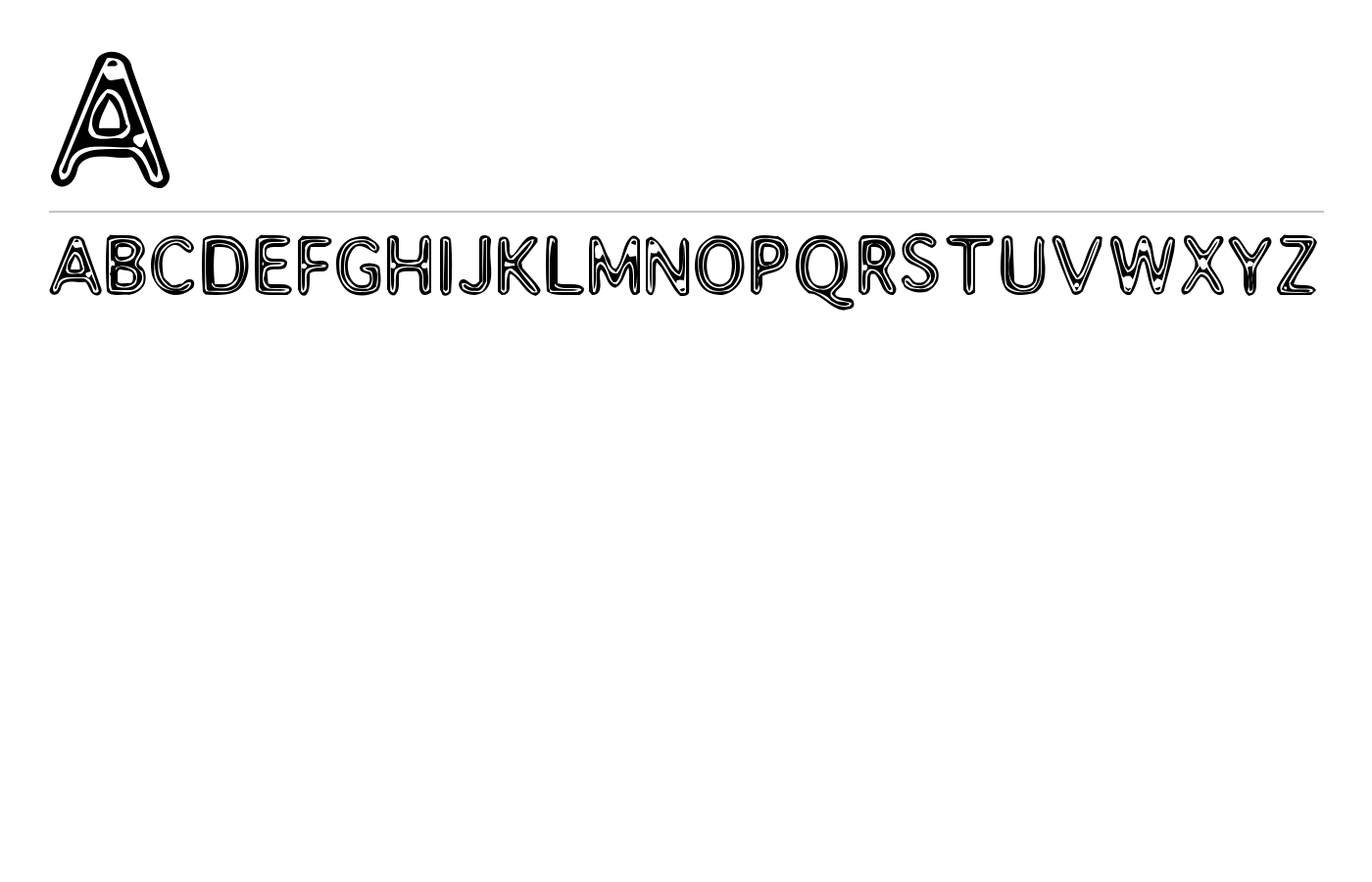
Assimilate Font is a playful and modern sans serif typeface characterized by its outlined, slightly irregular letterforms that create a dynamic, hand-drawn effect. Its bold weight and condensed width, combined with soft, curvy edges and unique interior detailing, make it ideal for expressive headlines, logos, and packaging where a fun, creative vibe is desired. This font works best in designs seeking an energetic and approachable personality, especially for brands aiming to stand out with a distinctive, artistic touch.
Assimilate Font
About Assimilate Font